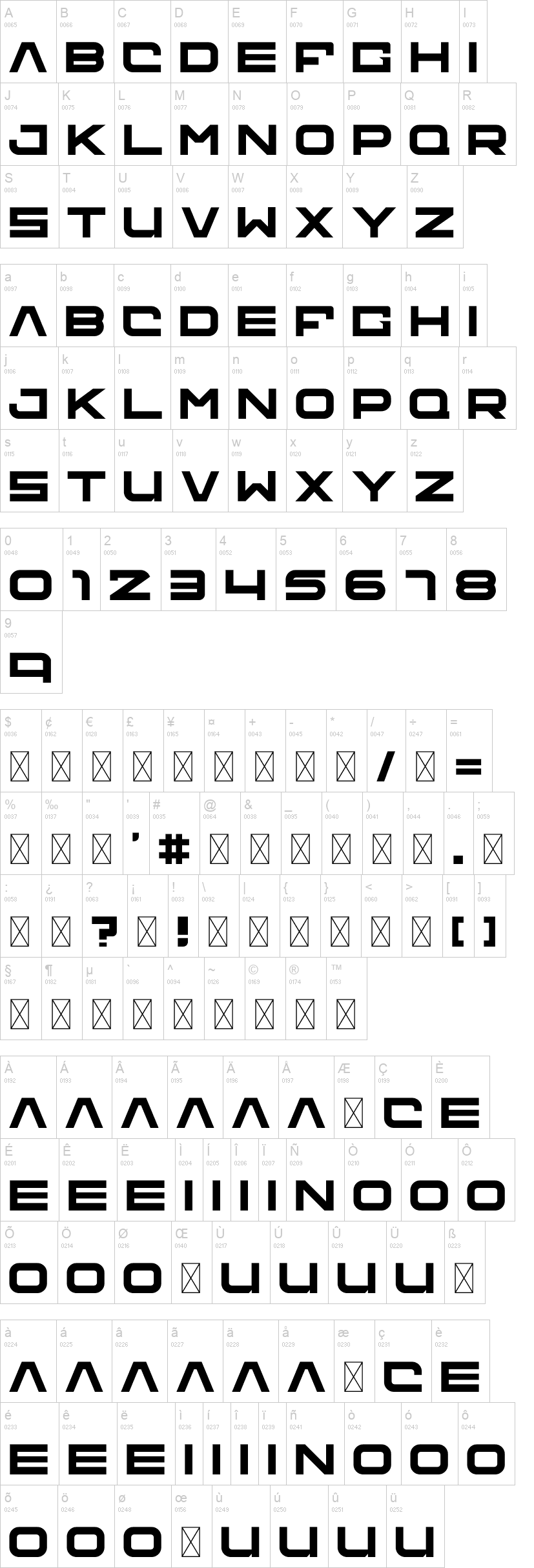
Airnt
by
Sesohq
Airnt is a 4 style showcase font that holds a futuristic/urban vibe. I've created fonts such as Quantum and aquire. Which is why you'll see a "Quantum" style in order to show love to the fonts that gave me so much momentum